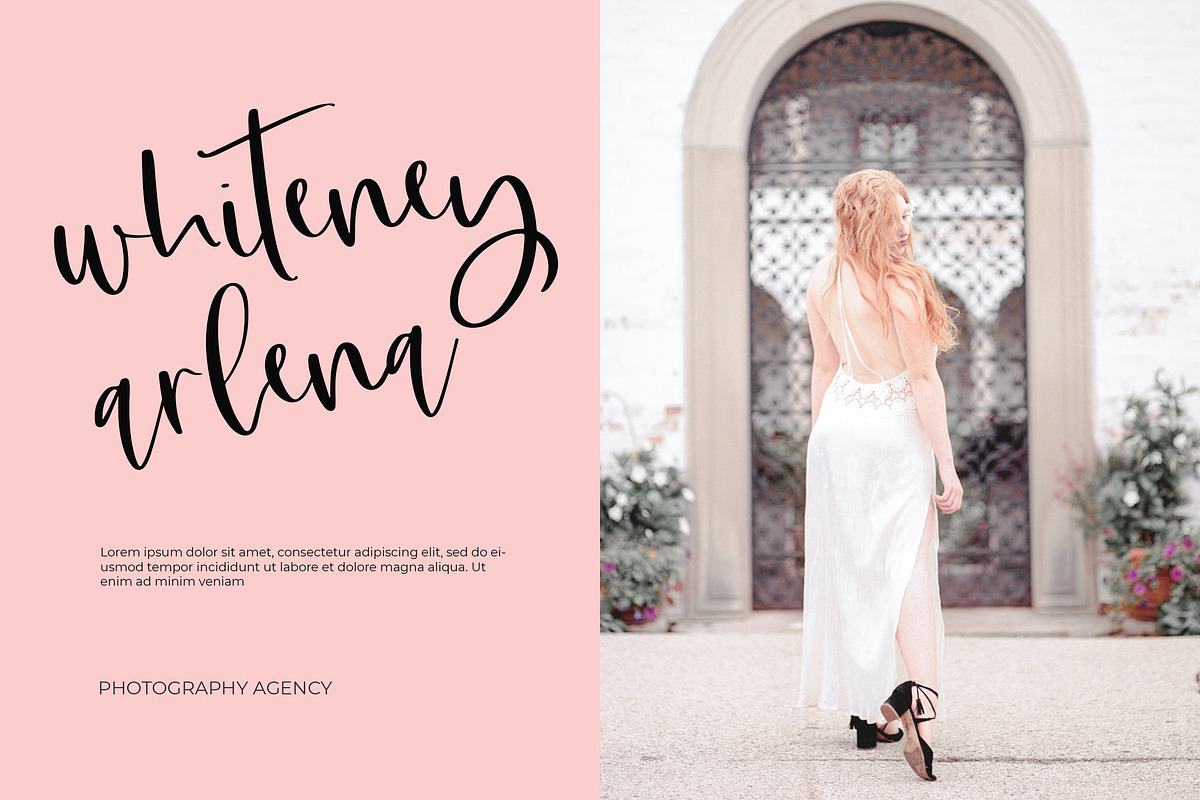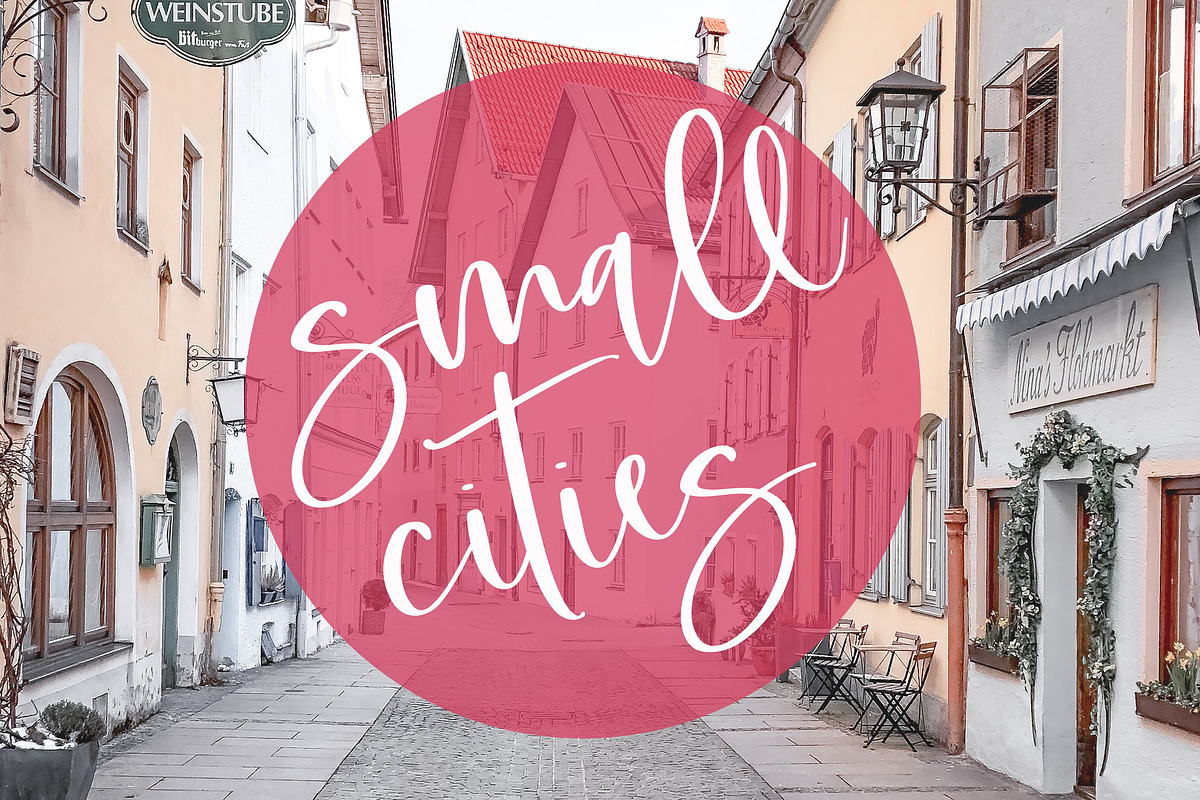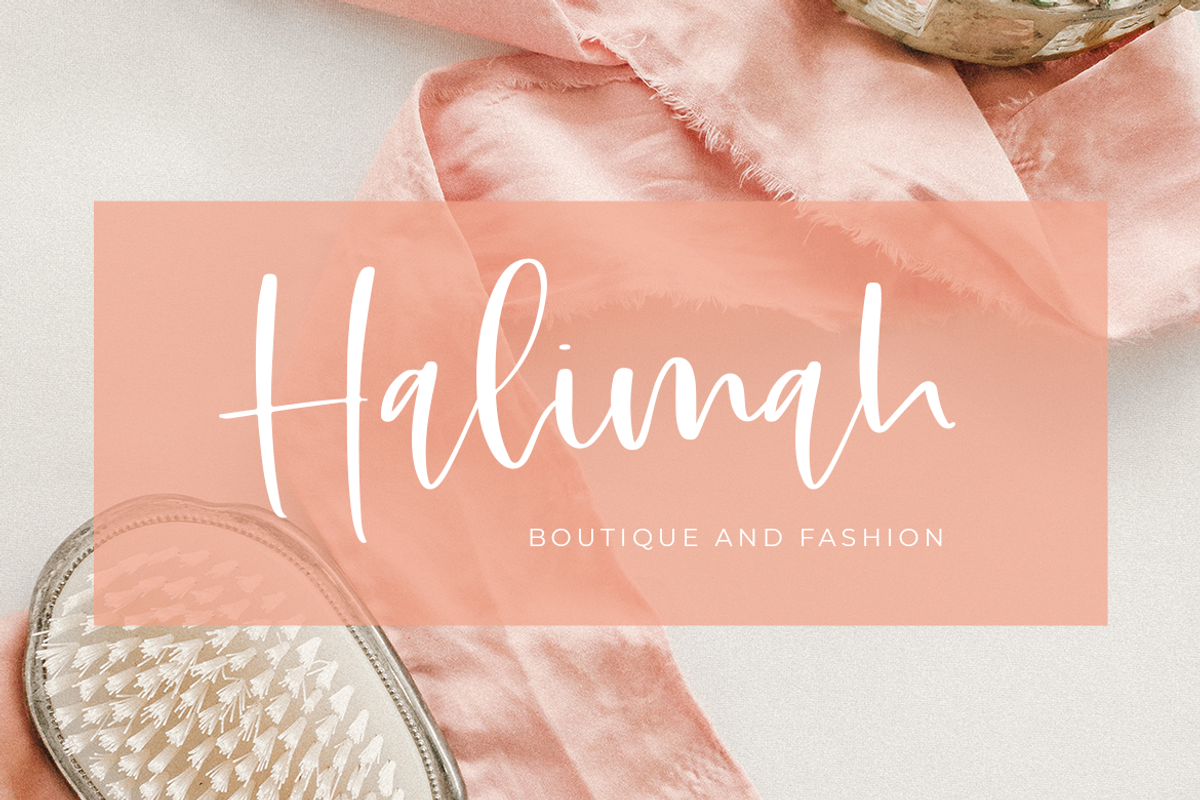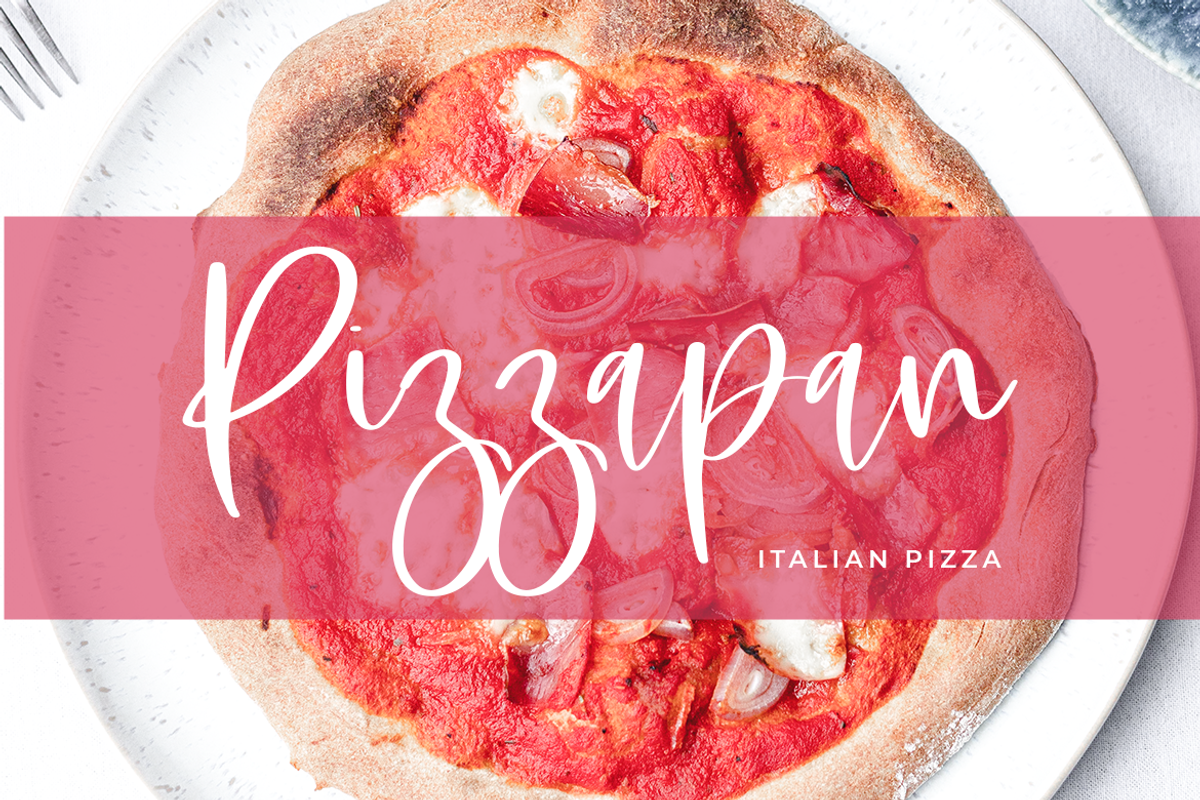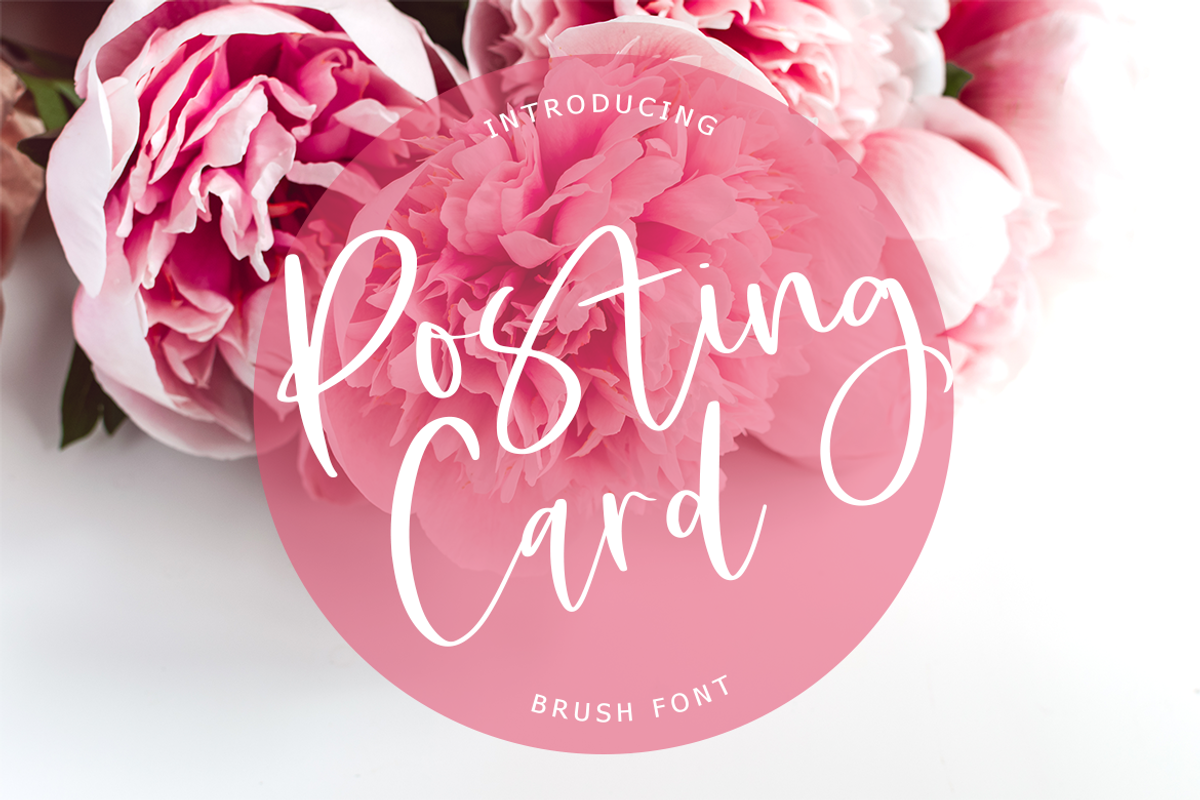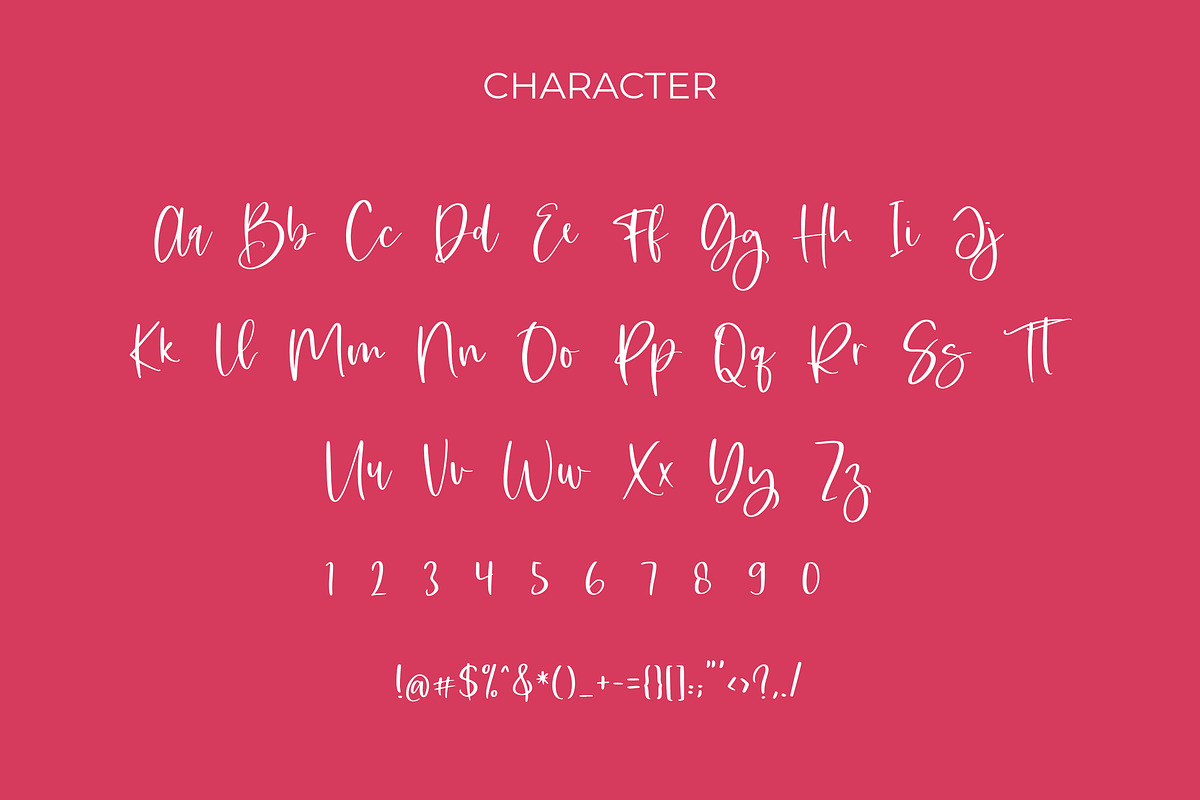
Posting Card Brush Font
Posting Card is a beautiful brush font with modern style. It’s perfect for adding a graceful feel to any design project.
Posting Card is perfect for branding projects, logo, wedding designs, social media posts, advertisements, product packaging, product designs, label, photography, watermark, invitation, stationery and any projects.
Posting Card Brush Font by Lythcreative fits naturally into Branding, posters, packaging, typography.